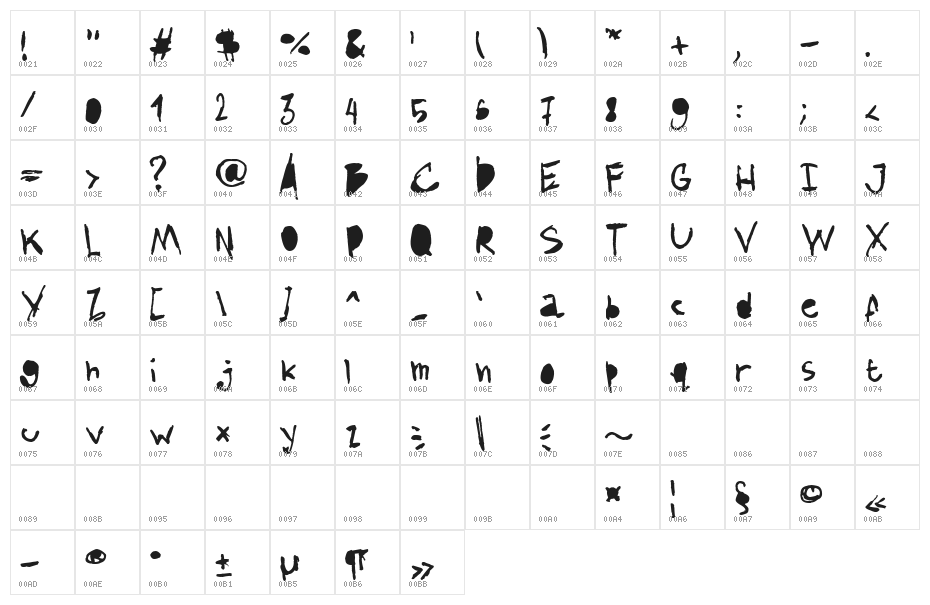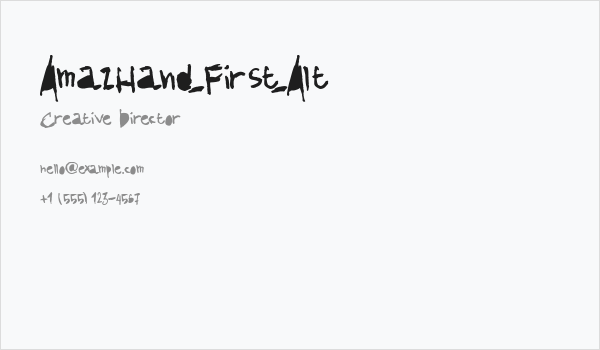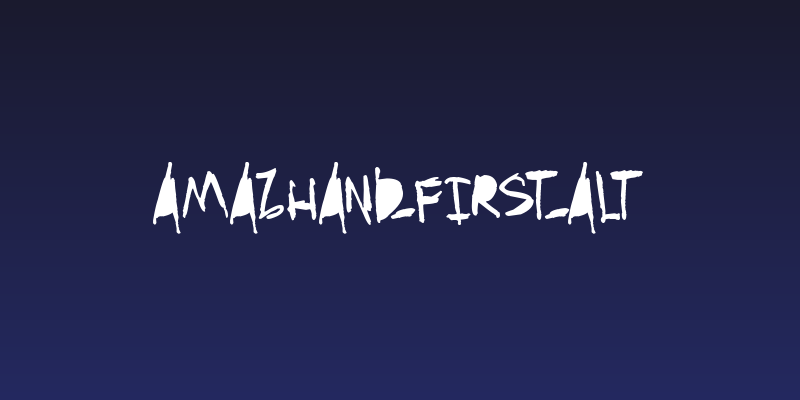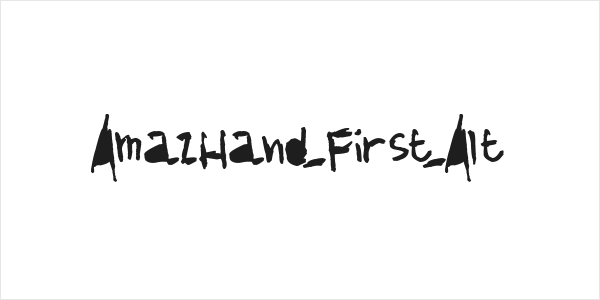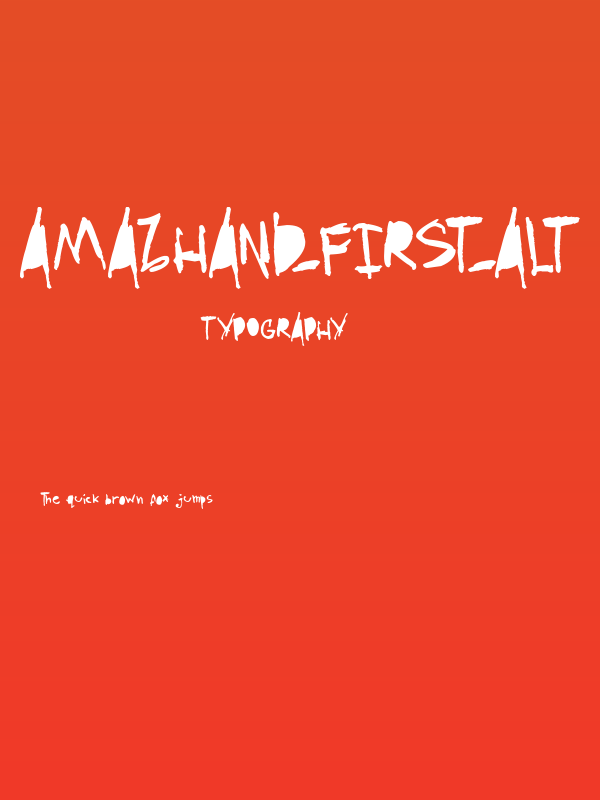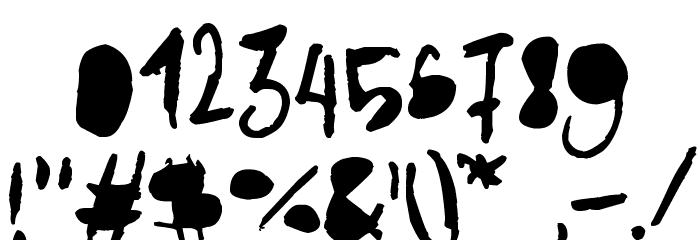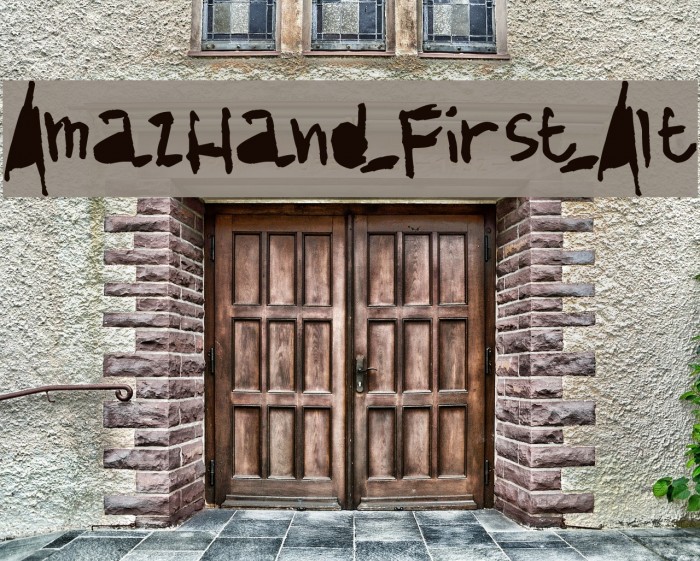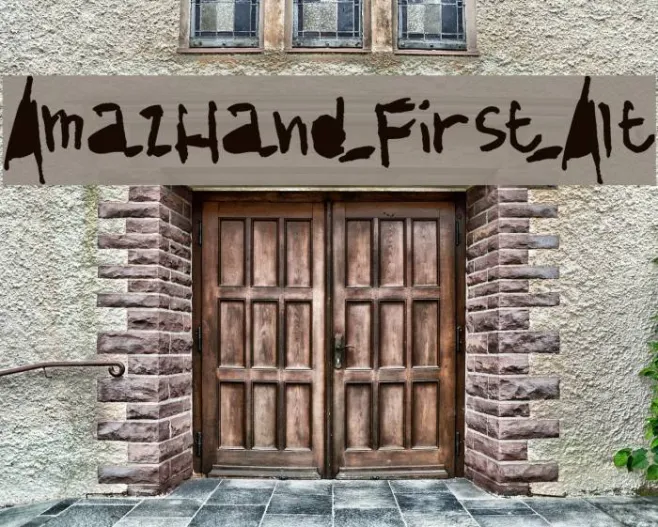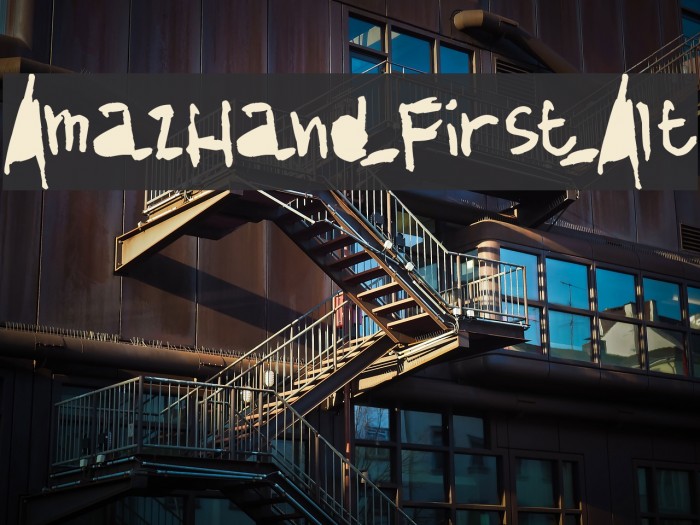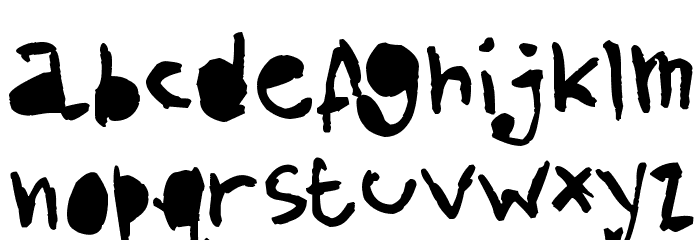
AmazHand_First_Alt Font
AmazHand_First_Alt Description
This font features a bold, expressive style with a hand-drawn appearance. The letters are irregular and dynamic, giving a sense of movement and energy. The uppercase and lowercase characters maintain a consistent aesthetic, with thick strokes and uneven edges that suggest a brush or marker tool. Numbers and special characters follow the same artistic approach, enhancing the font's overall cohesive look. This font's unique style makes it stand out, perfect for projects that require a personal, artistic touch.
| Use Case | Logos, Headlines, Posters |
| Proposed Projects | Ideal for artistic projects, posters, album covers, and creative branding that require a personal touch. |